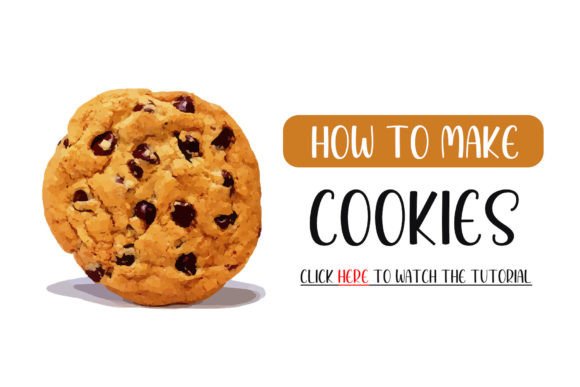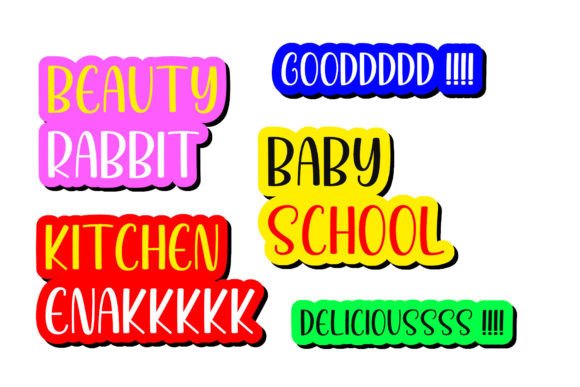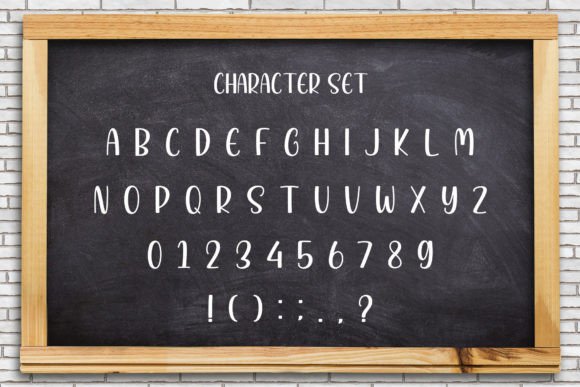
Baby School Font
Baby School is a handwritten font with a semi-bold and cute shape. The Baby School font suits cute-themed designs, children, schools, and others. Add it to any of your designs and enjoy the results!